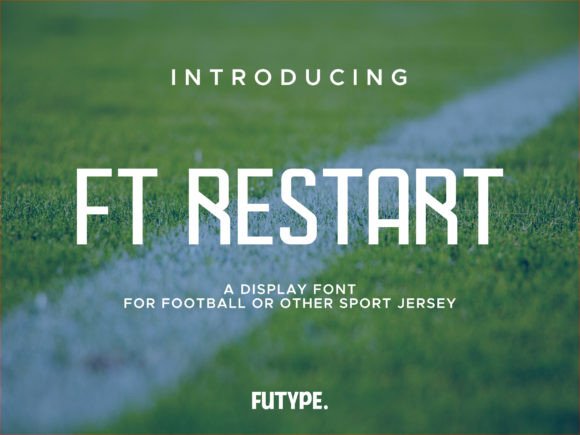
Introducing FT Restart Font: The Ultimate Display Font for Sports Kits and Jerseys
In the world of sports, branding and identity play a crucial role in setting teams apart from their competitors. One of the most critical elements of a team’s visual identity is the font used on their kits or jerseys. A well-designed font can make a significant difference in how a team is perceived, and it can also enhance the overall aesthetic appeal of their branding. This is where FT Restart Font comes into play – a display font specifically designed for football or other sports kits or jerseys.
What is FT Restart Font?
FT Restart is a display font, made for football or other sport kits or jerseys. The shape of every letter and number makes the name and number look unique, unforgettable, and most importantly, easy to read.
Key Features of FT Restart Font
- Unique and Unforgettable Design: The font’s distinct shape and style make it stand out from other fonts, ensuring that teams can create a lasting impression with their branding.
- Easy to Read: Despite its unique design, FT Restart Font is optimized for readability, ensuring that names and numbers are easily recognizable, even from a distance.
- Specifically Designed for Sports Kits and Jerseys: The font is tailored to meet the specific needs of sports teams, taking into account the fast-paced and dynamic nature of sports.
The Benefits of Using FT Restart Font
Using FT Restart Font can have numerous benefits for sports teams, including:
- Enhanced Branding: A unique and well-designed font can significantly enhance a team’s visual identity, setting them apart from their competitors.
- Increased Recognition: The font’s distinctive design makes it easier for fans and spectators to recognize and remember a team’s branding.
- Improved Readability: The font’s optimized readability ensures that names and numbers are easily recognizable, reducing confusion and errors.
Design Elements of FT Restart Font
The design of FT Restart Font is characterized by:
- Bold and Geometric Shapes: The font features bold and geometric shapes, giving it a modern and dynamic feel.
- Customized Lettering: Each letter and number has been carefully crafted to create a unique and distinctive design.
- Attention to Detail: The font’s design is meticulous, with attention to every detail to ensure that it meets the needs of sports teams.
Usage Examples of FT Restart Font
FT Restart Font can be used in a variety of contexts, including:
- Football Kits and Jerseys: The font is specifically designed for use on football kits and jerseys, but it can also be used on other sports equipment and apparel.
- Sports Team Branding: The font can be used as part of a sports team’s overall branding strategy, including on their website, social media, and marketing materials.
- Event and Tournament Branding: The font can be used to create a consistent visual identity for events and tournaments, such as sports competitions and championships.
Tips for Effective Use of FT Restart Font
To get the most out of FT Restart Font, consider the following tips:
- Use it Consistently: Use the font consistently across all branding and marketing materials to create a cohesive visual identity.
- Choose the Right Color Scheme: Select a color scheme that complements the font and enhances the overall visual appeal of the branding.
- Experiment with Different Styles: Experiment with different styles and variations of the font to create a unique and distinctive look.
FT Restart Font is a unique and effective display font designed specifically for sports kits and jerseys. Its distinctive design, optimized readability, and bold geometric shapes make it an ideal choice for sports teams looking to enhance their branding and visual identity. By using FT Restart Font, teams can create a lasting impression, increase recognition, and improve readability – essential elements for success in the competitive world of sports.